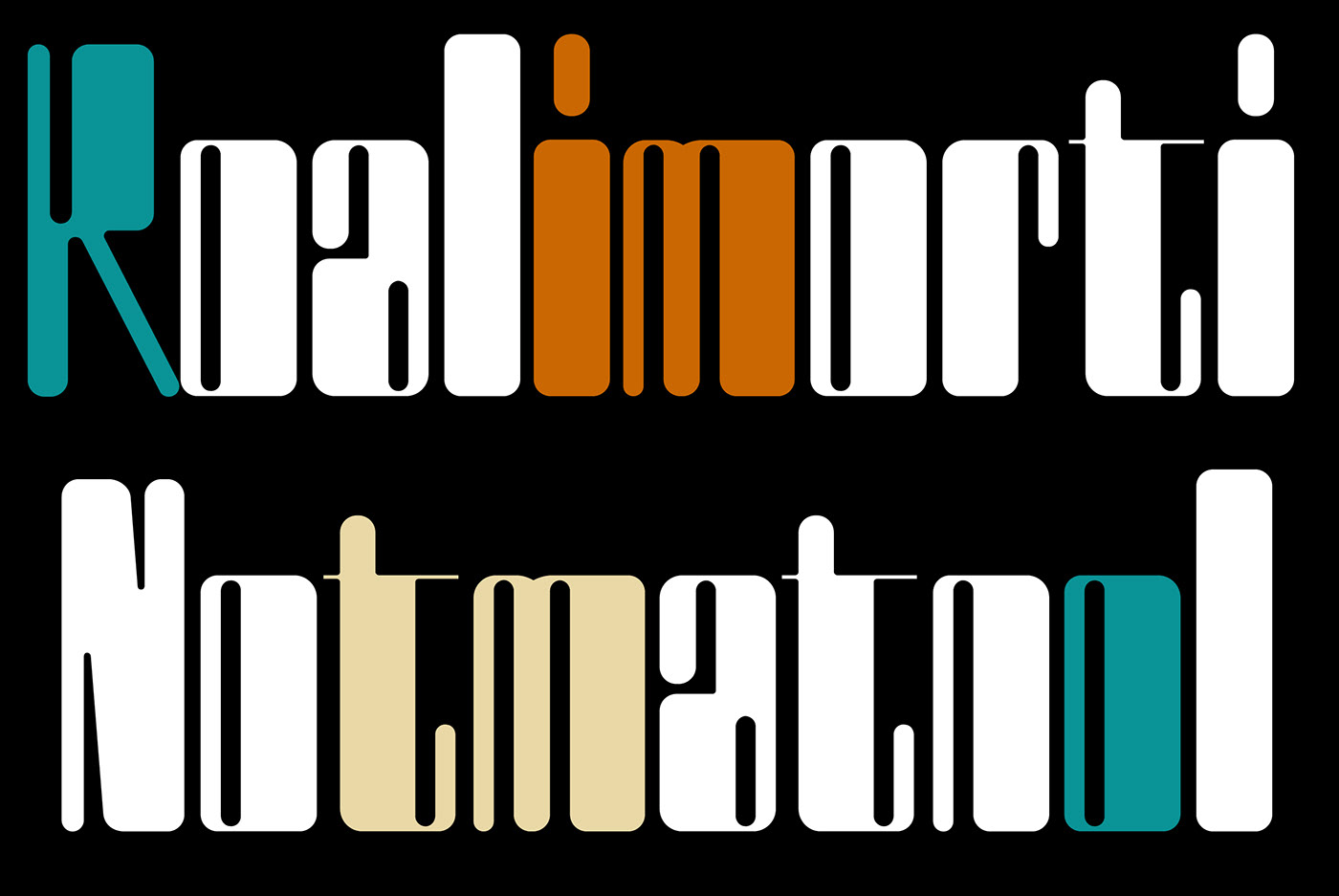
ZT Retzok is a new retro display font from ZELOW ® that features thick and thin lines like a barcode.
ZT Retzok can easily fit into a large range of projects such as posters, book covers, logotypes, stickers, and more, so add it to your creative ideas and watch how it makes it stand out!